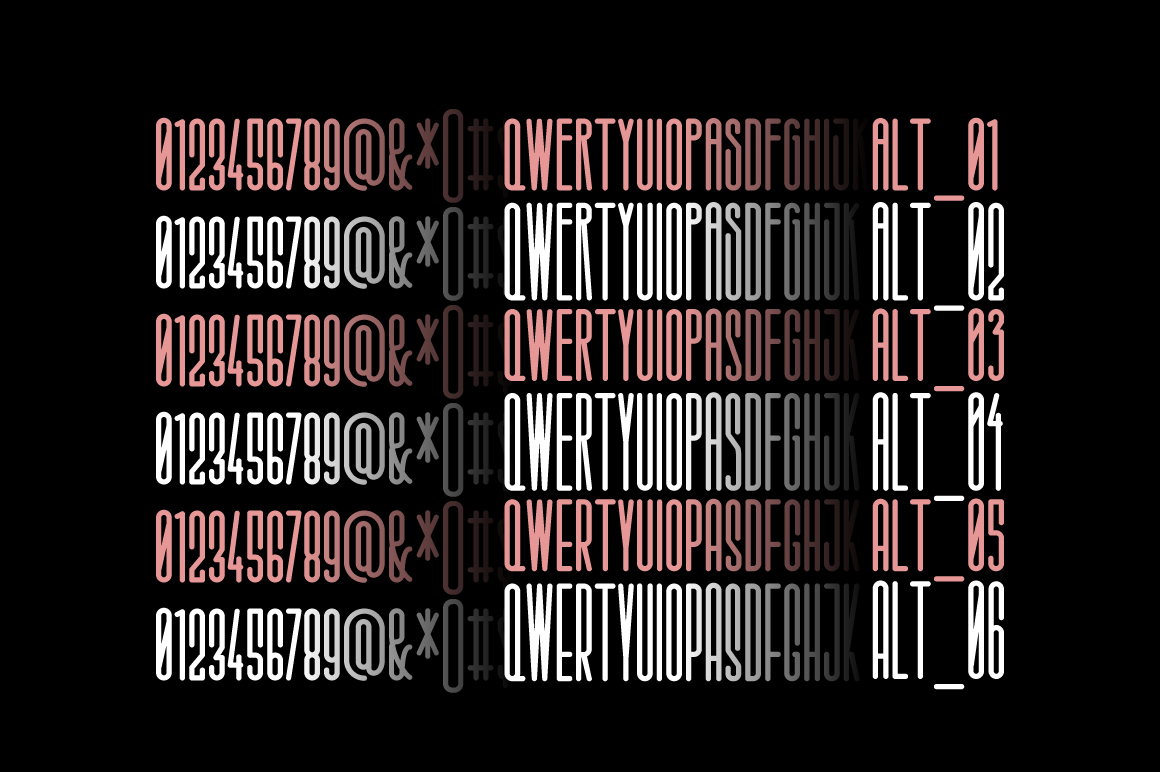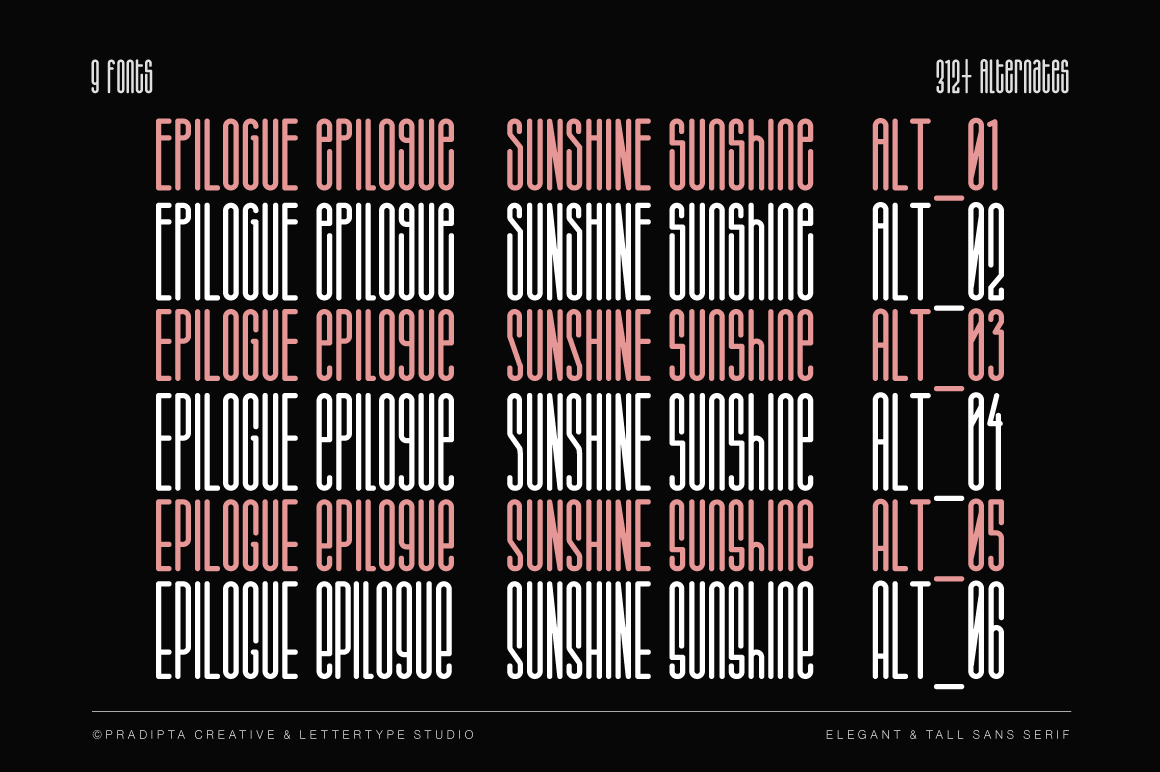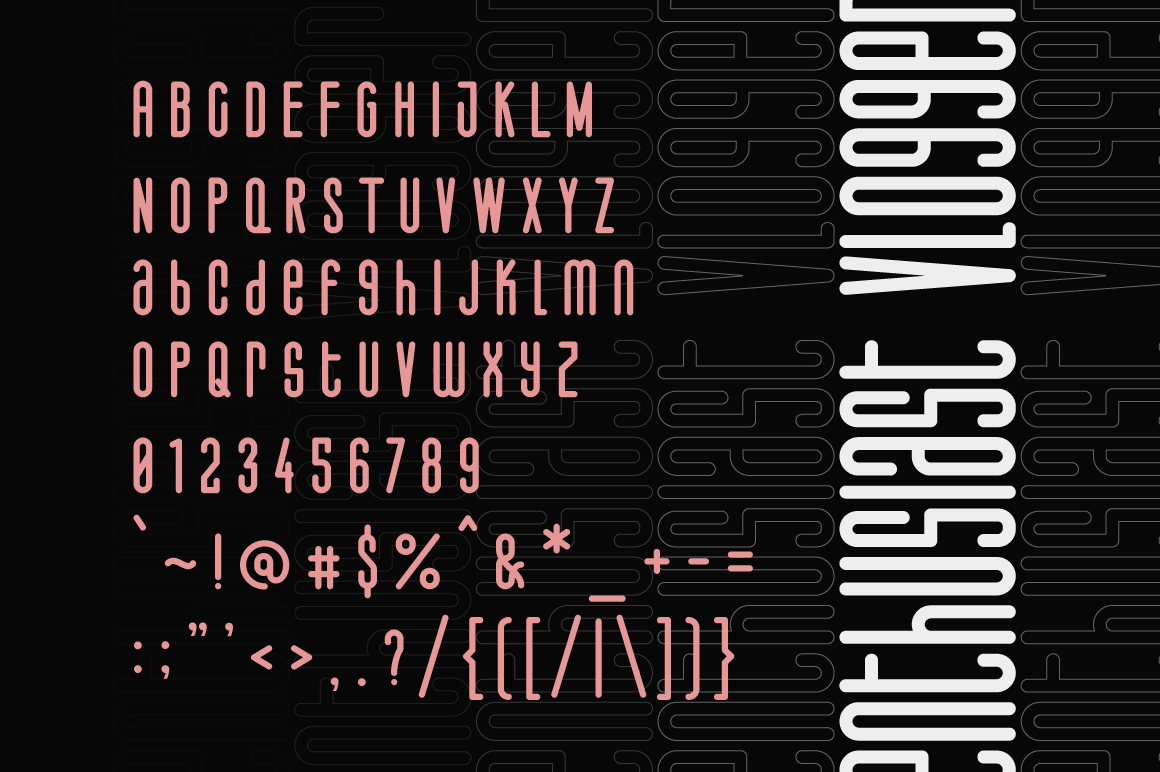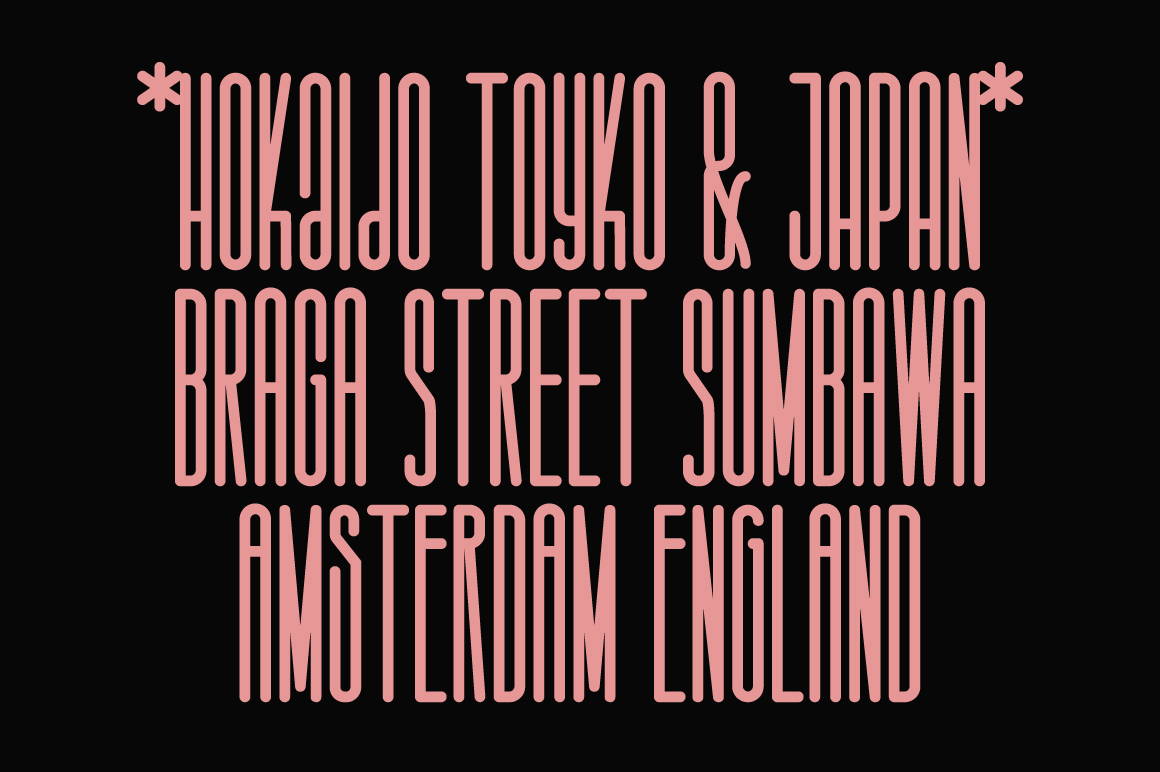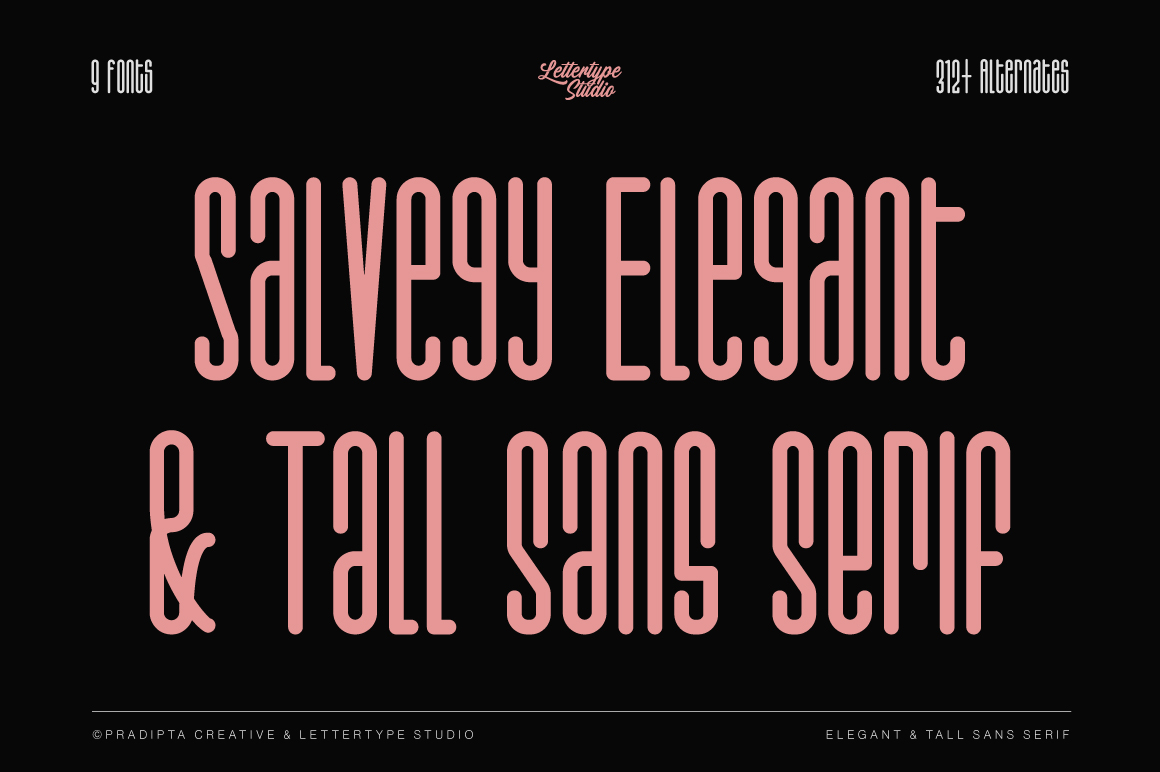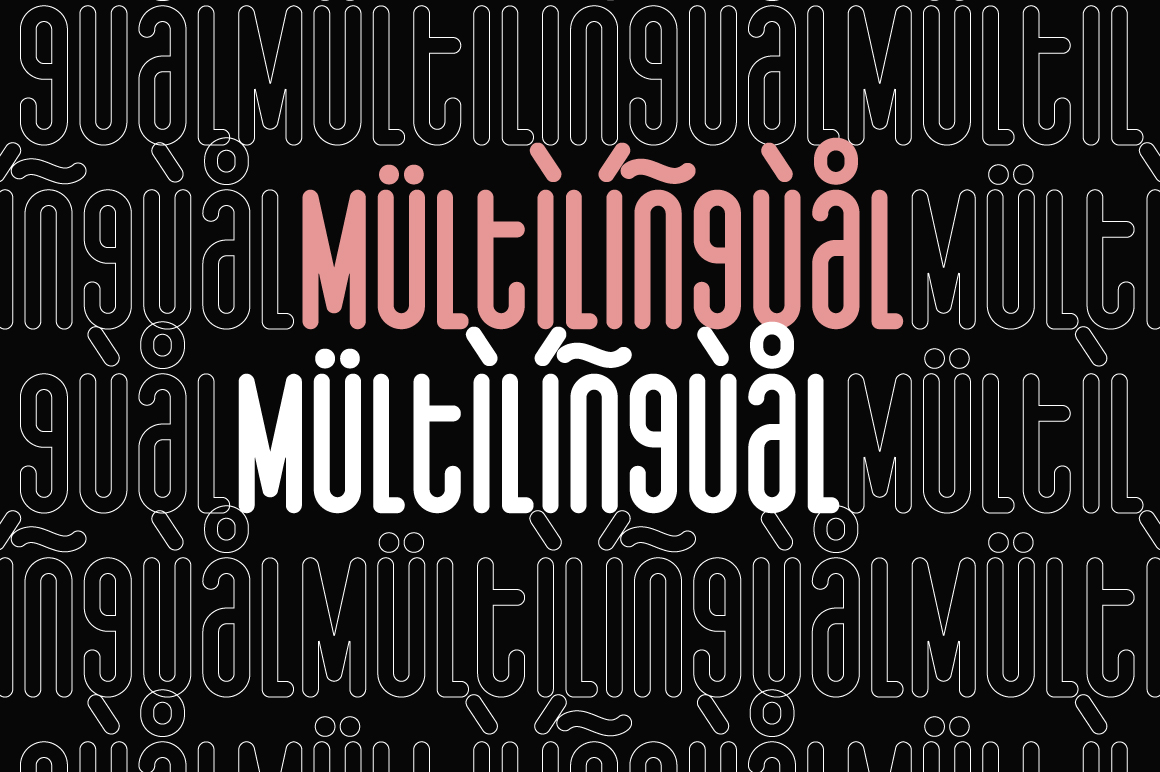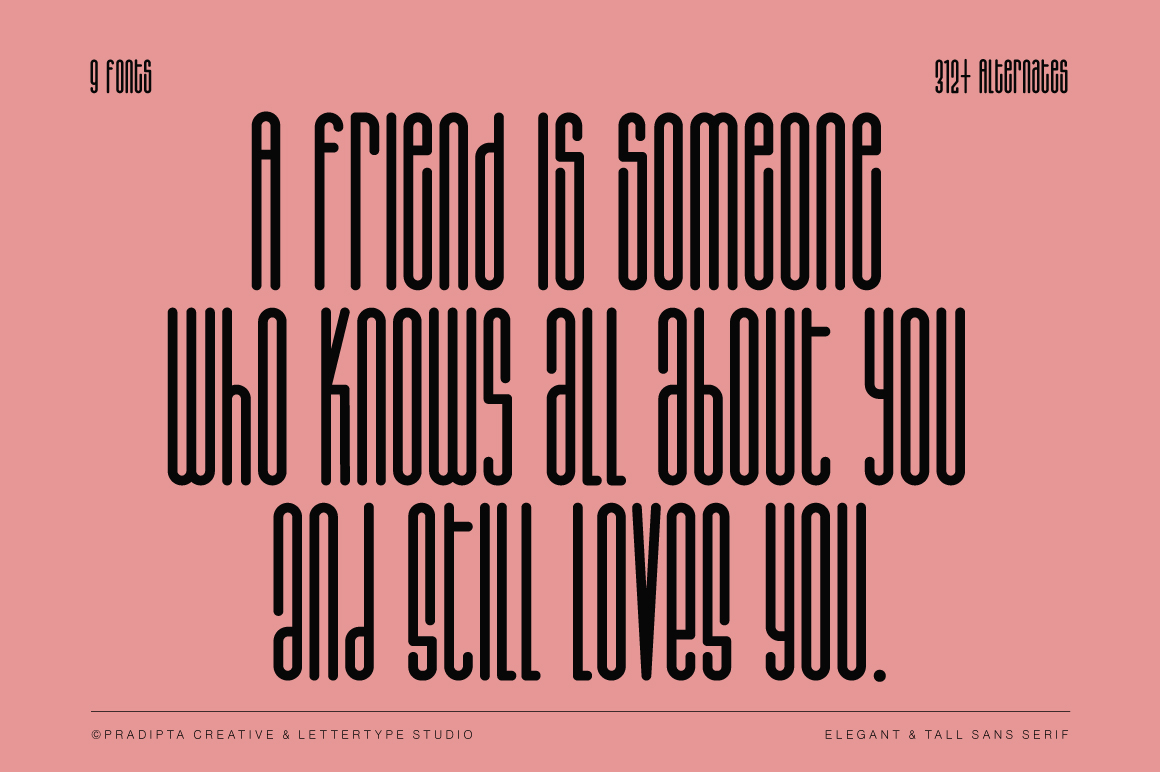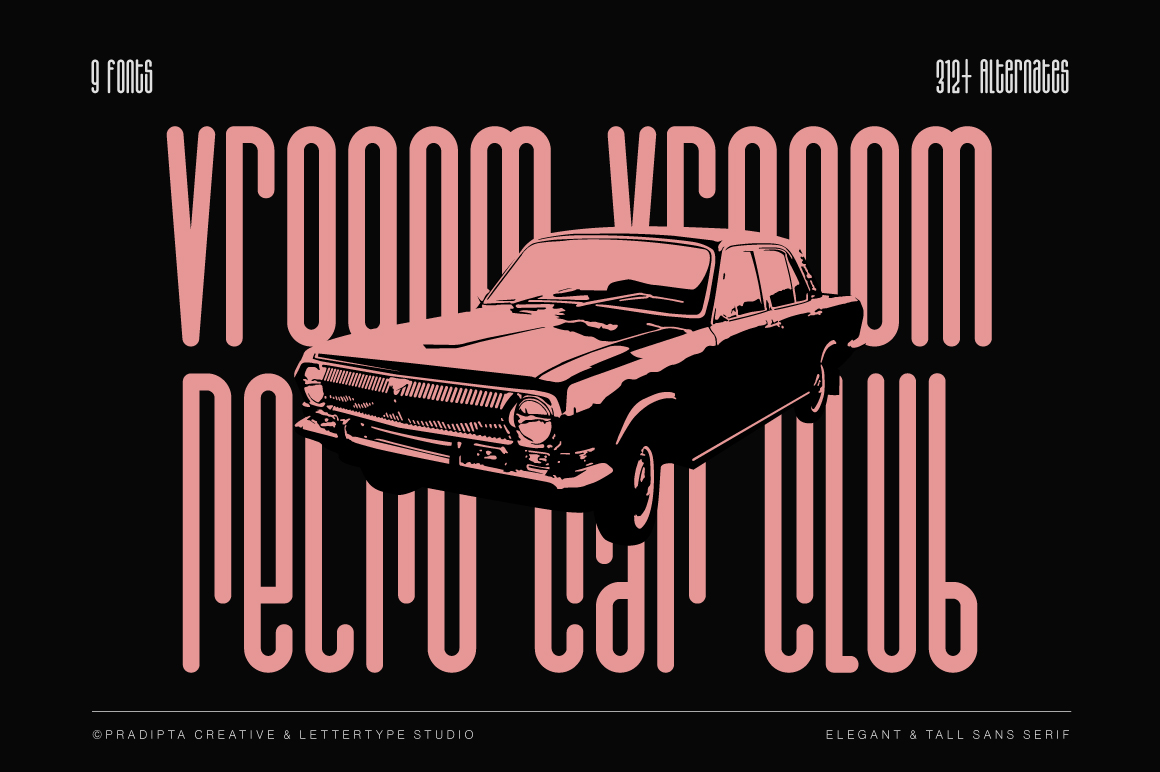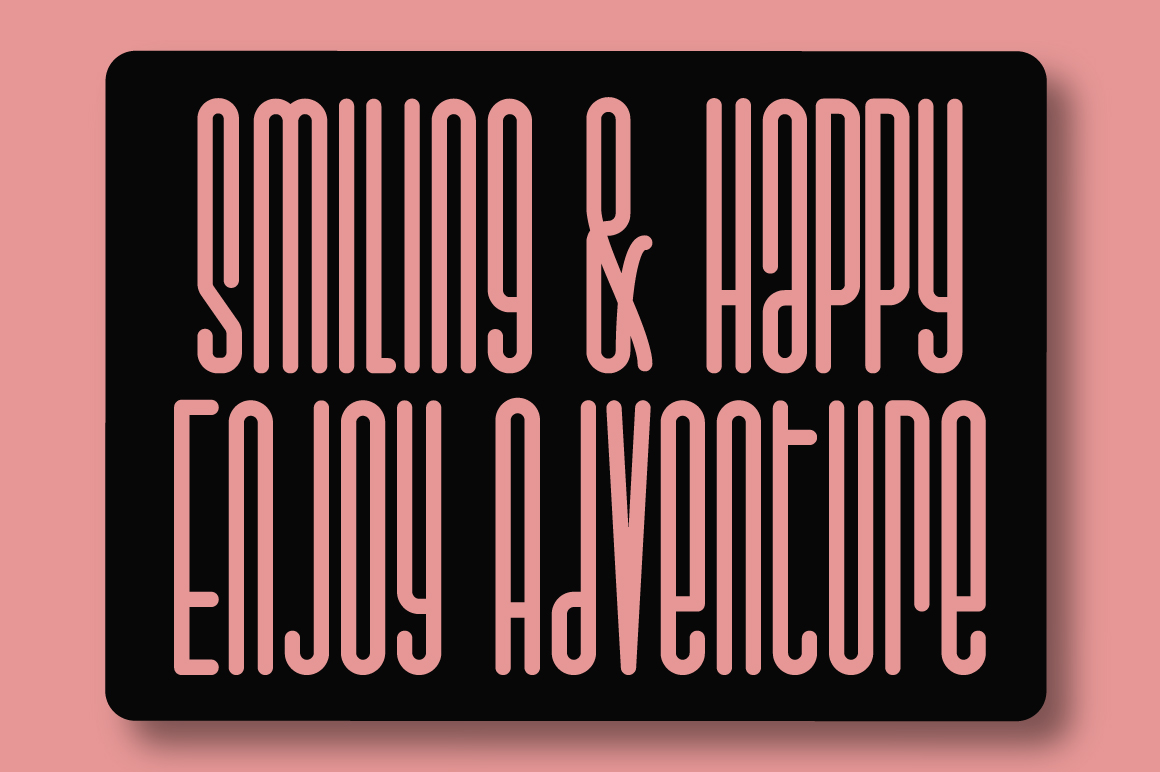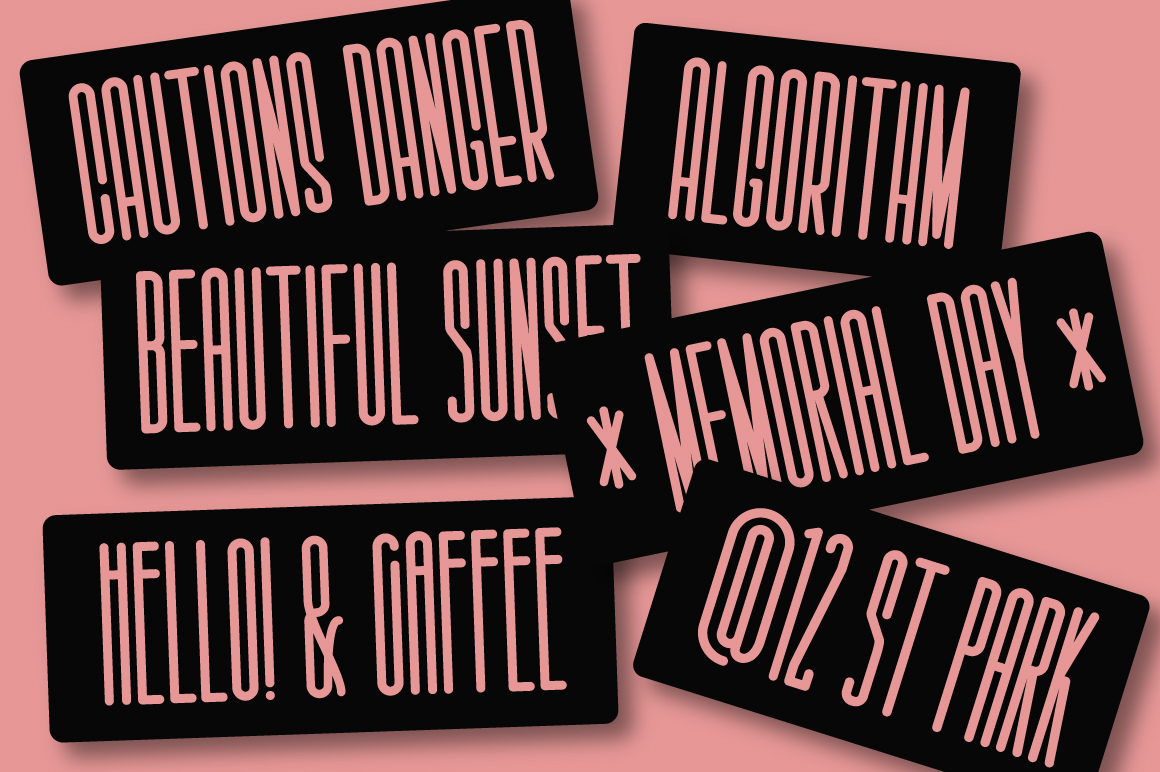
Salvegy is a tall and refined sans serif font family that combines modern minimalism with timeless sophistication. Its extended height and slim proportions make it a perfect choice for high-end branding, luxury editorials, and elegant typography layouts.
With 9 styles and multilingual support, Salvegy offers both versatility and visual impact. Whether used for logos, headlines, or digital design, it delivers clean structure and clarity while maintaining an elevated, professional tone across all creative projects.
• Lowercase & Uppercase
• Numerals & Punctuation
• Alternates & Ligature
• Multilingual Support
• Font Family (9 Styles)